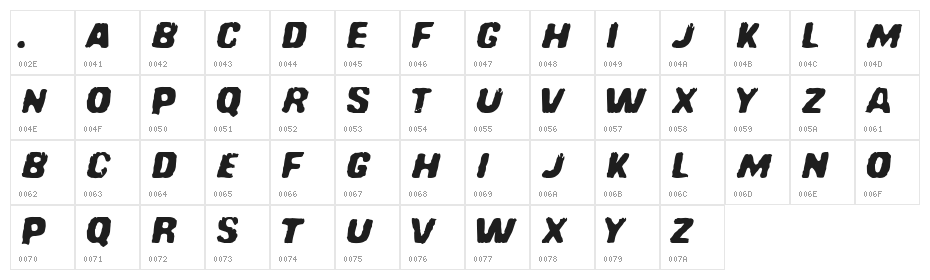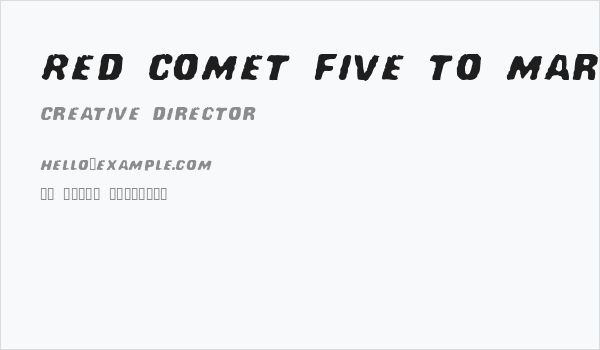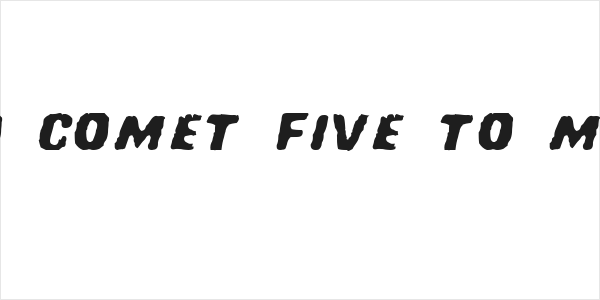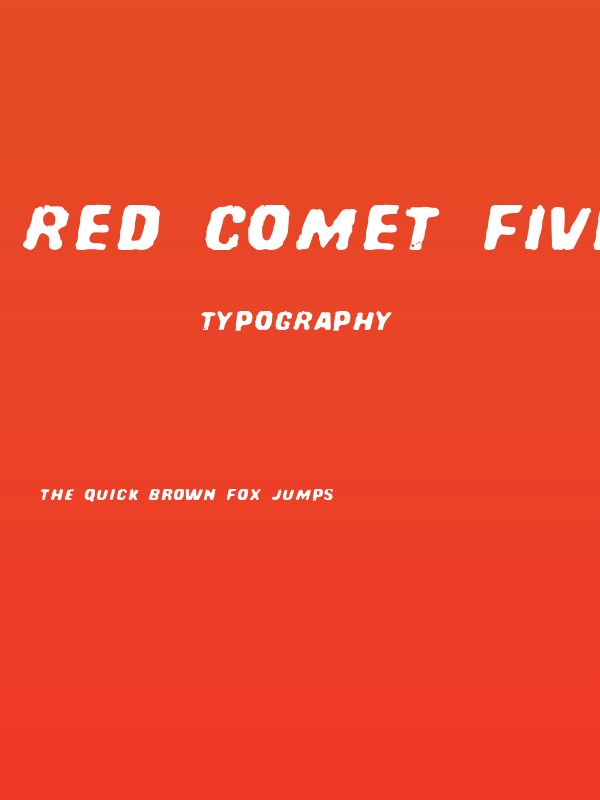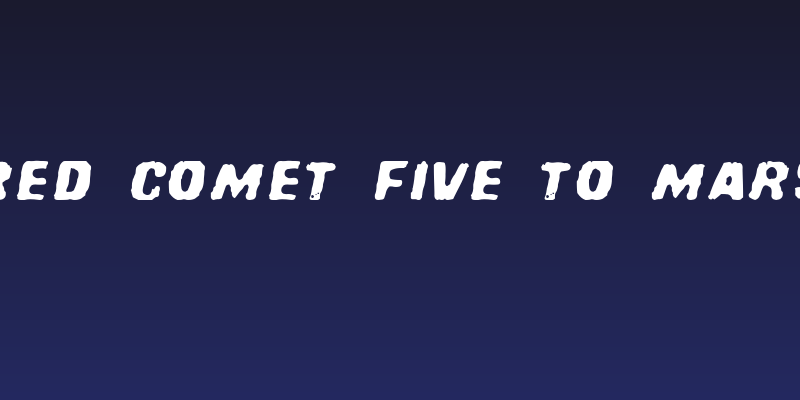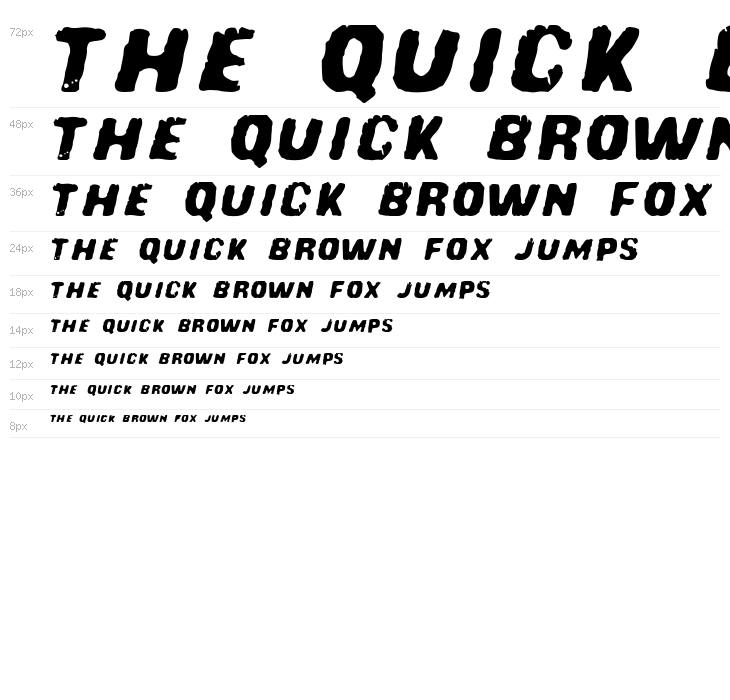
Red Comet Five to Mars Font
Red Comet Five to Mars Description
This font features a bold and dynamic style with a distressed, textured appearance. The uppercase letters are robust and slightly slanted, giving a sense of movement and energy. The strokes are thick and uneven, adding a rugged, handcrafted feel. The overall design is reminiscent of vintage or retro aesthetics, suitable for creating impactful and eye-catching designs. The lack of lowercase letters and numbers suggests a focus on bold statements and headlines.
| Proposed Projects | Ideal for posters, logos, and branding projects that require a strong, vintage look. Suitable for music album covers, sports team branding, or any project needing a bold statement. |